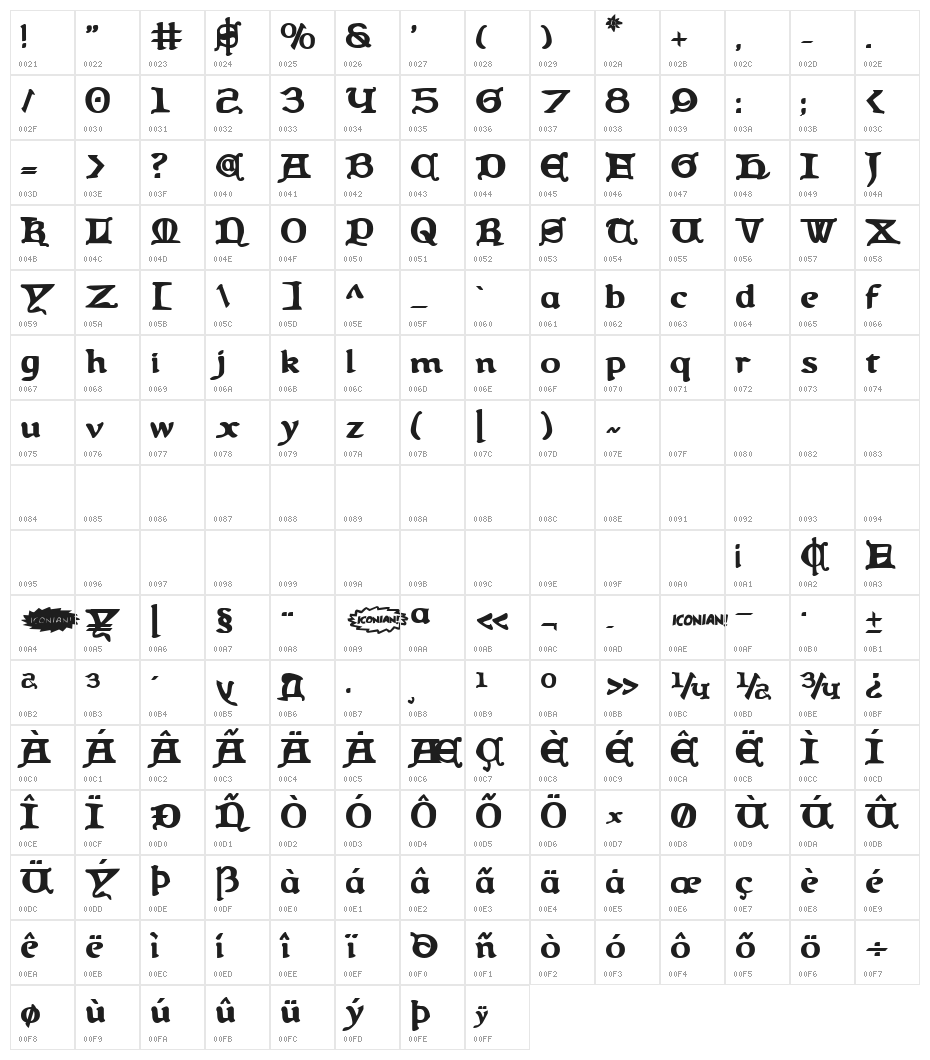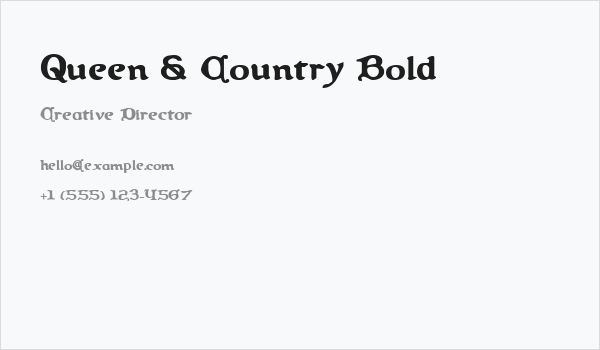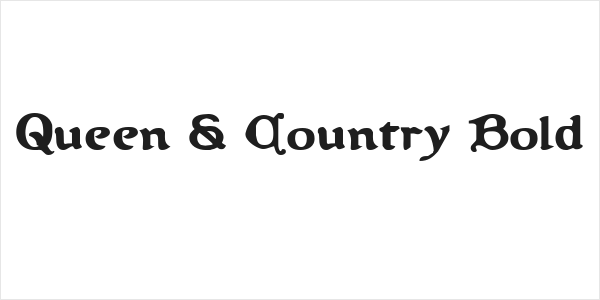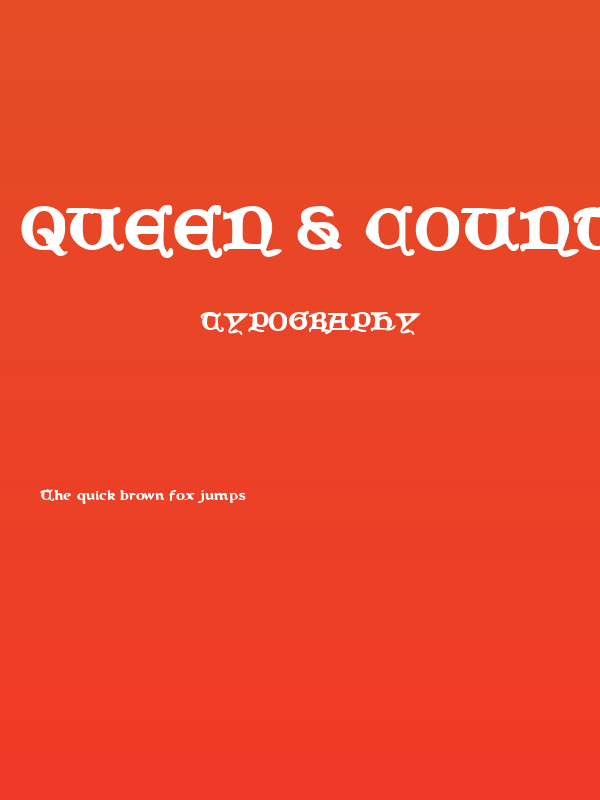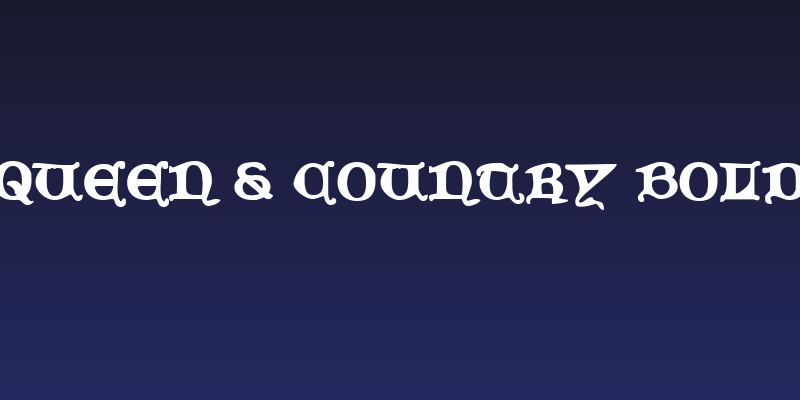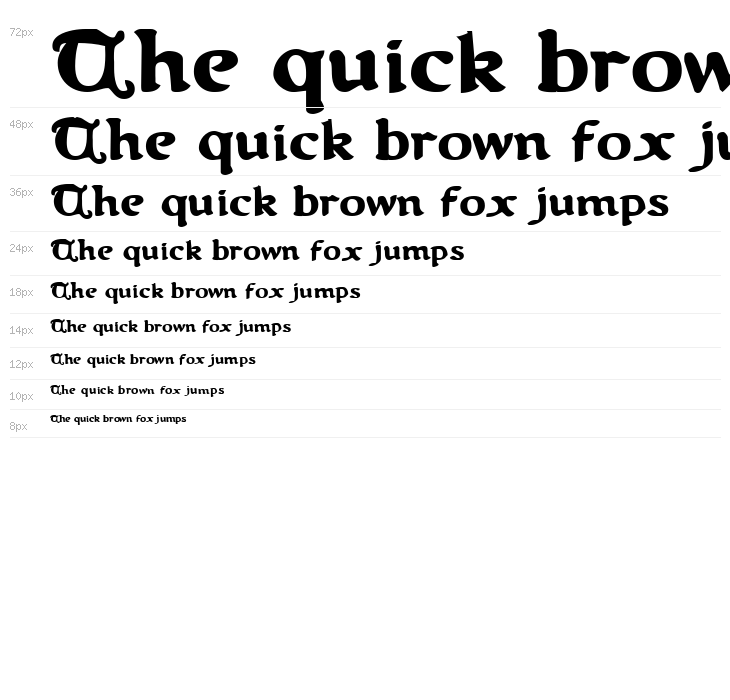
Queen & Country Bold Font
Queen & Country Bold Description
This font exhibits a bold and decorative style with a strong presence. The characters are uniquely crafted with an artistic flair, featuring intricate curves and a medieval-inspired design. The uppercase letters are particularly striking, with a sense of grandeur and elegance. The lowercase letters maintain a consistent style, complementing the uppercase with their rounded and flowing forms. Numbers and special characters are equally ornate, adding to the font's overall cohesive look. This font is ideal for projects that require a touch of sophistication and historical charm.
| Proposed Projects | Ideal for use in branding, logos, book covers, posters, and any project needing a historical or elegant touch. |